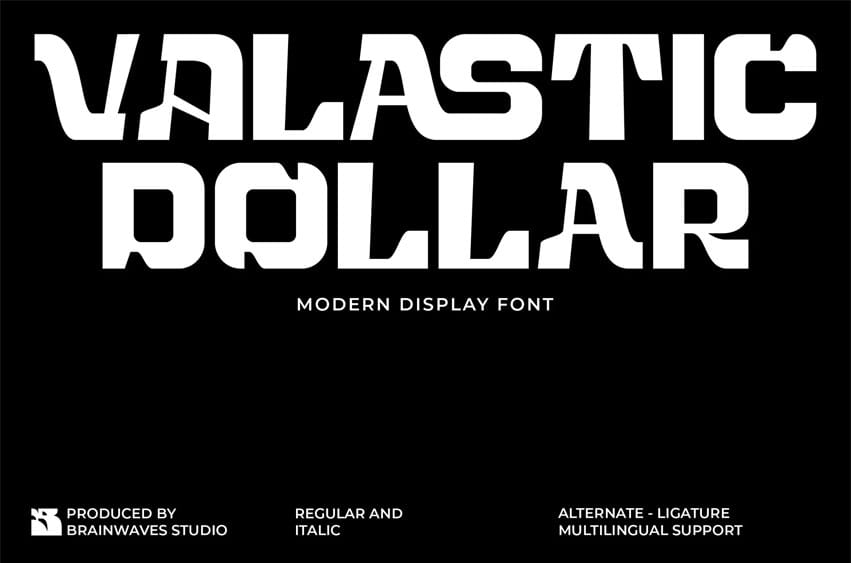
Valastic Dollar Font is a modern display typeface built for impact and individuality. With its strong futuristic cuts, bold geometry, and creative ligatures, this font is designed to break the monotony and deliver statements that stand out—loud and clear.
Whether you’re designing a music poster, branding a fashion label, crafting a cutting-edge website, or creating bold editorial headlines, Valastic Dollar gives your typography a fresh, disruptive edge. It’s visually commanding without sacrificing readability, thanks to its clean construction and thoughtful alternates.